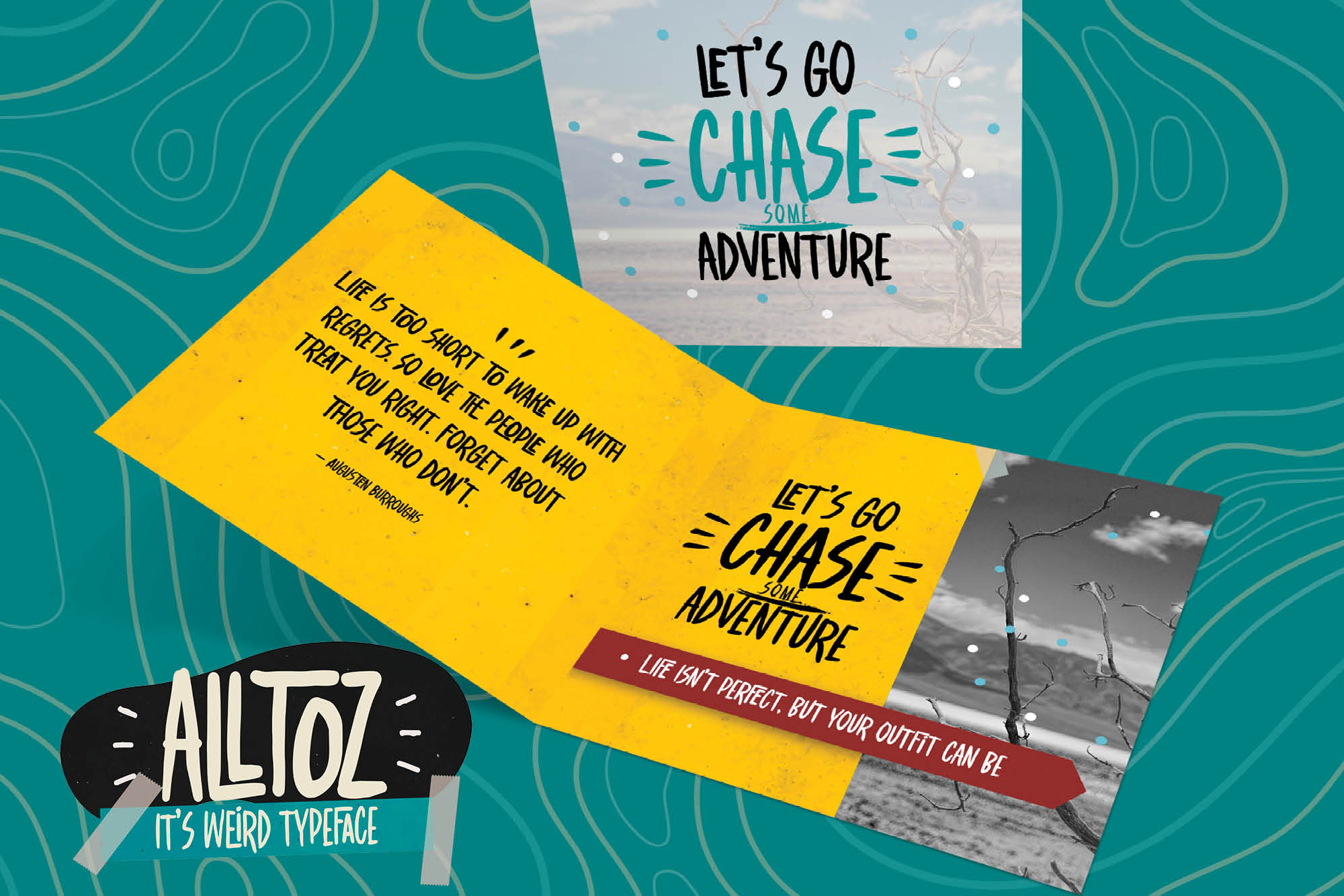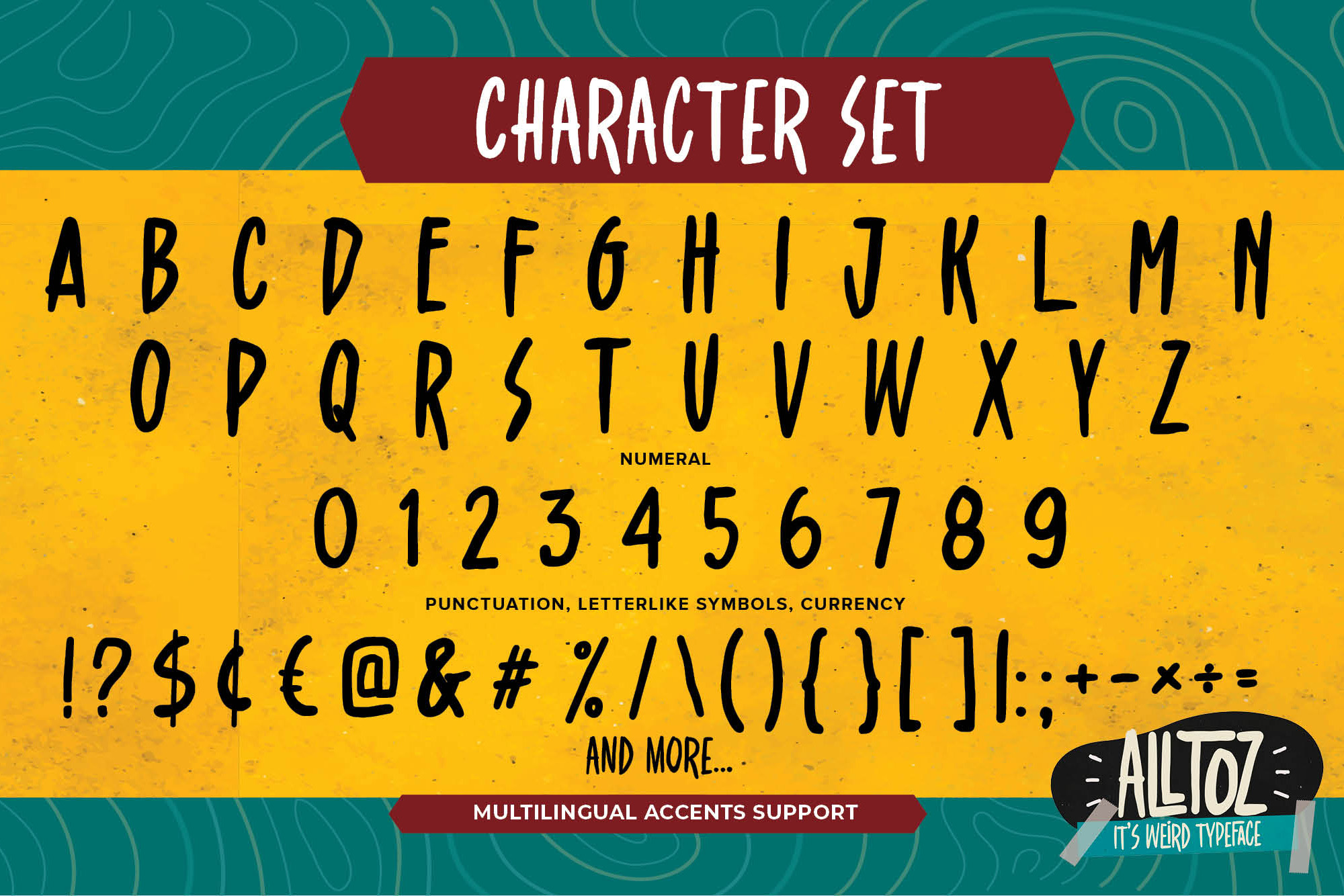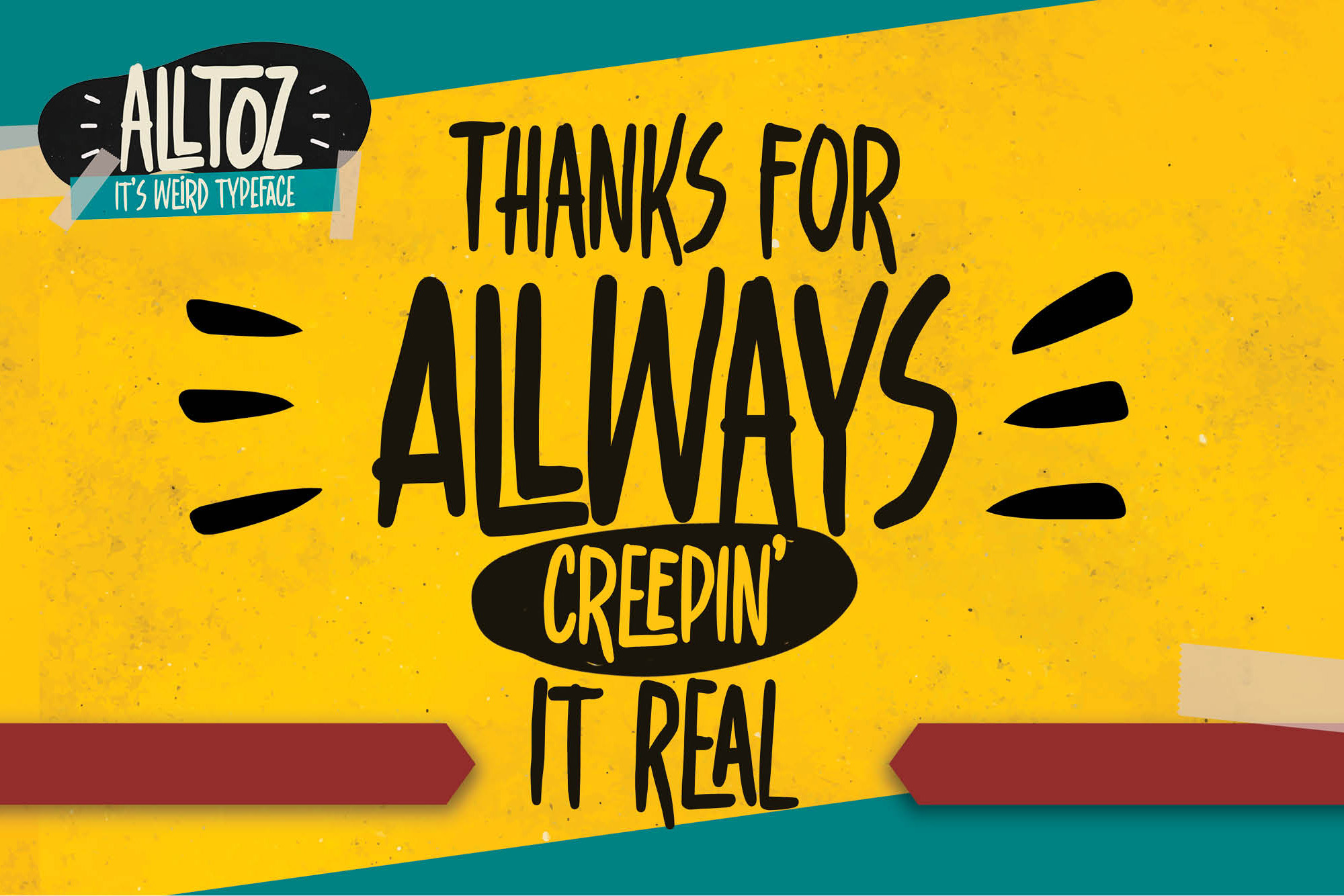
ALLTOZ – It’s Weird Typeface Font is a Modern Font that is written casually and quickly.
That is why ALLTOZ has a authentic, and cool characteristic more natural look. You can activate Ligatures glyphs OpenType panel.
ALLTOZ Perfect for designs, branding projects, Logo design,Quotes product packaging and another Project that strong require font.